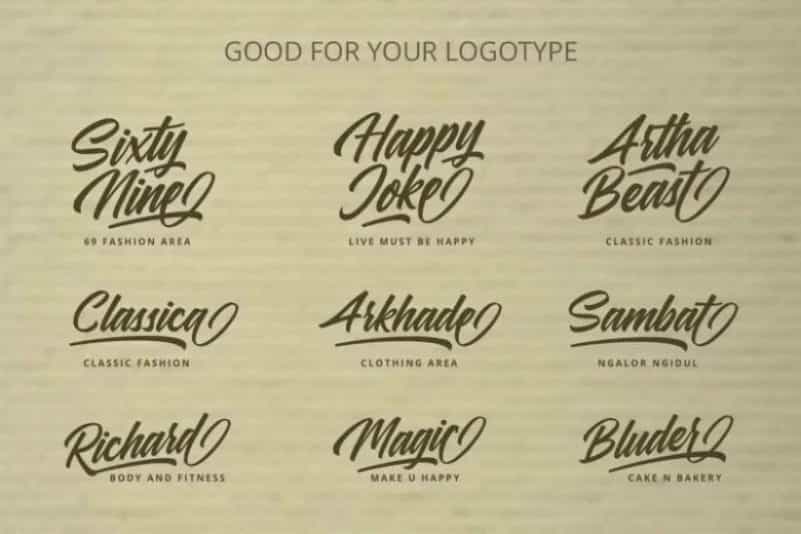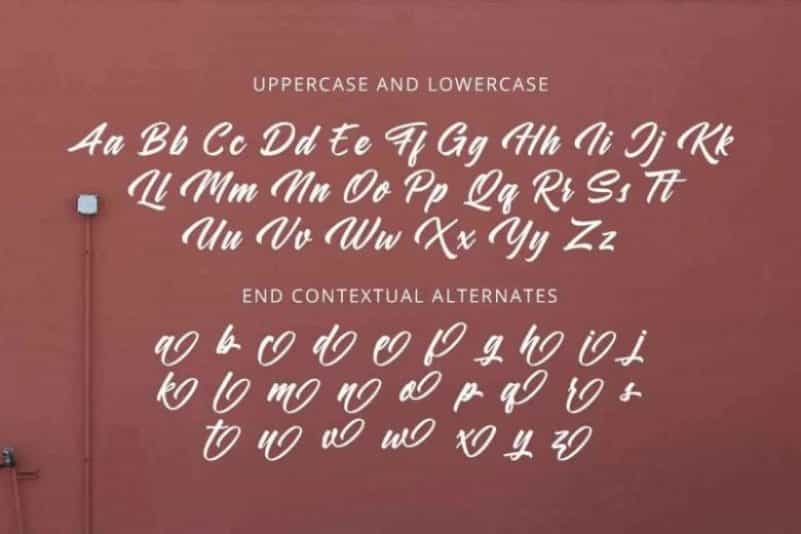
Samble Trice is shipped as a nice fresh script font with calligraphy style as well as handwriting and drawing features. It is in invitations, posters, book covers, or other branding materials that Samble Trice will surely enhance the appearance of your project.